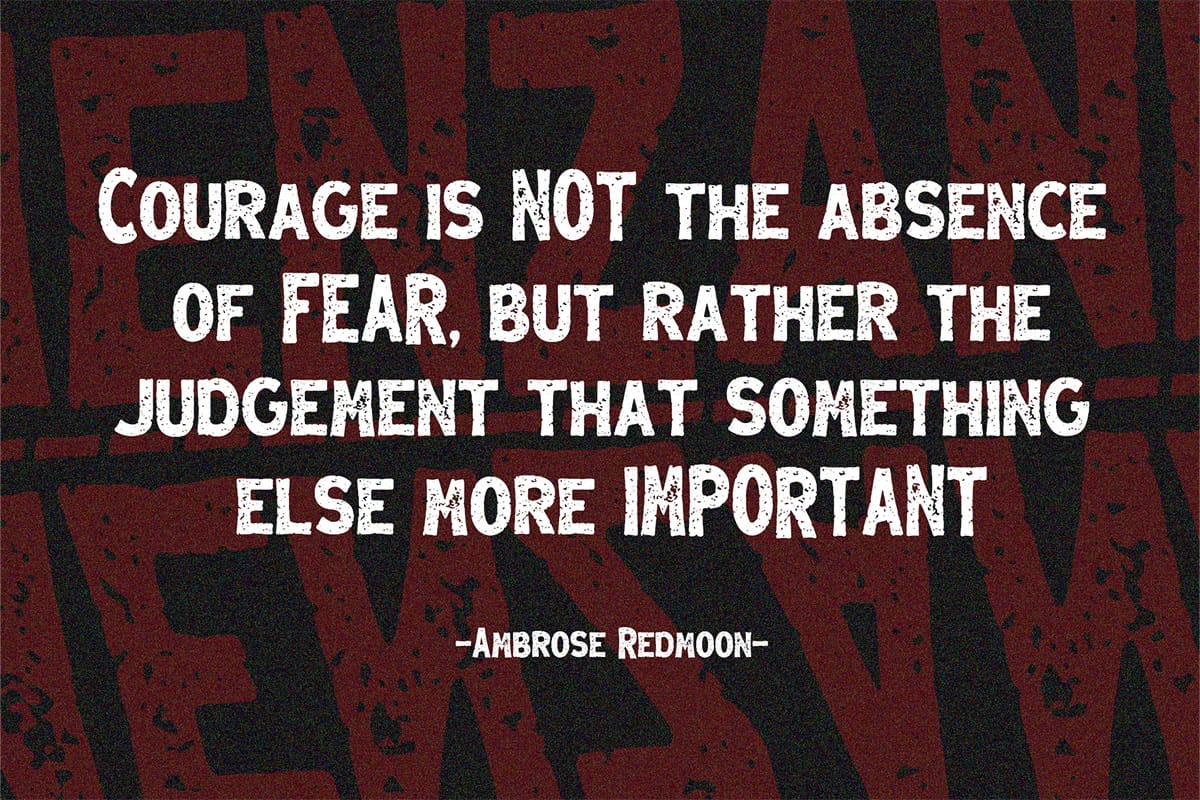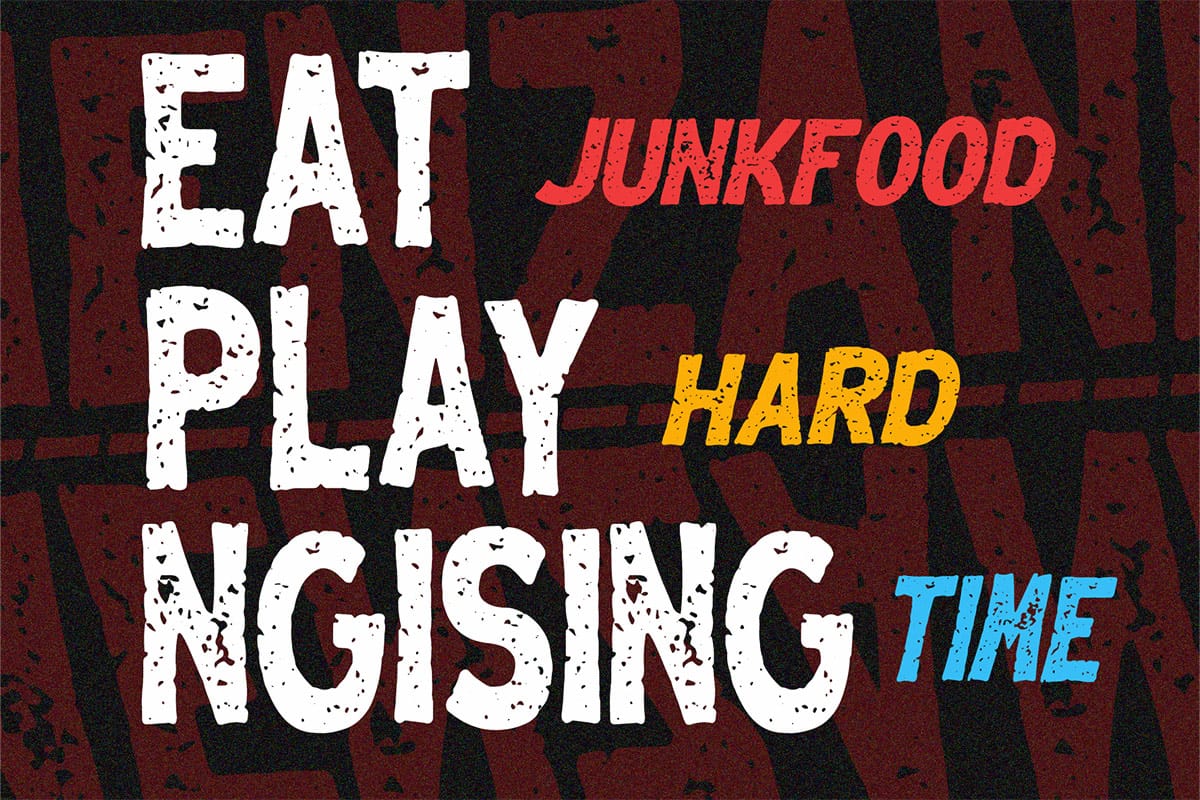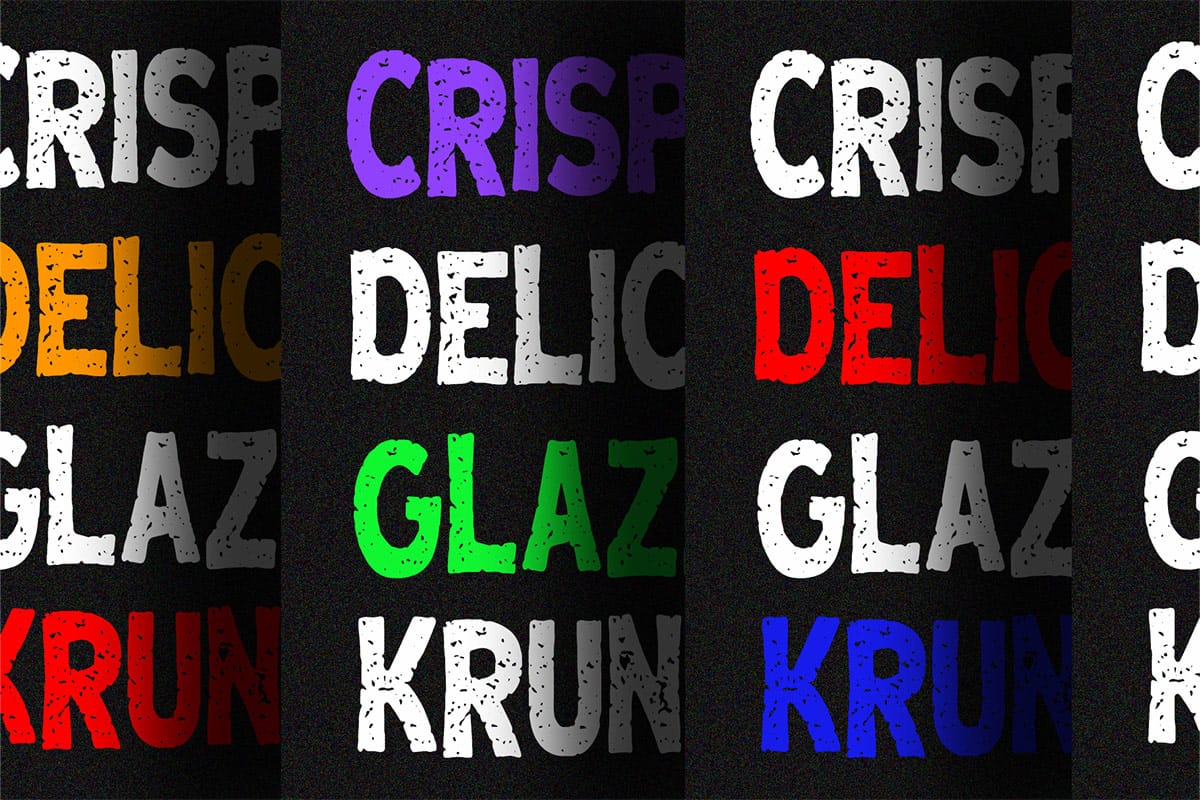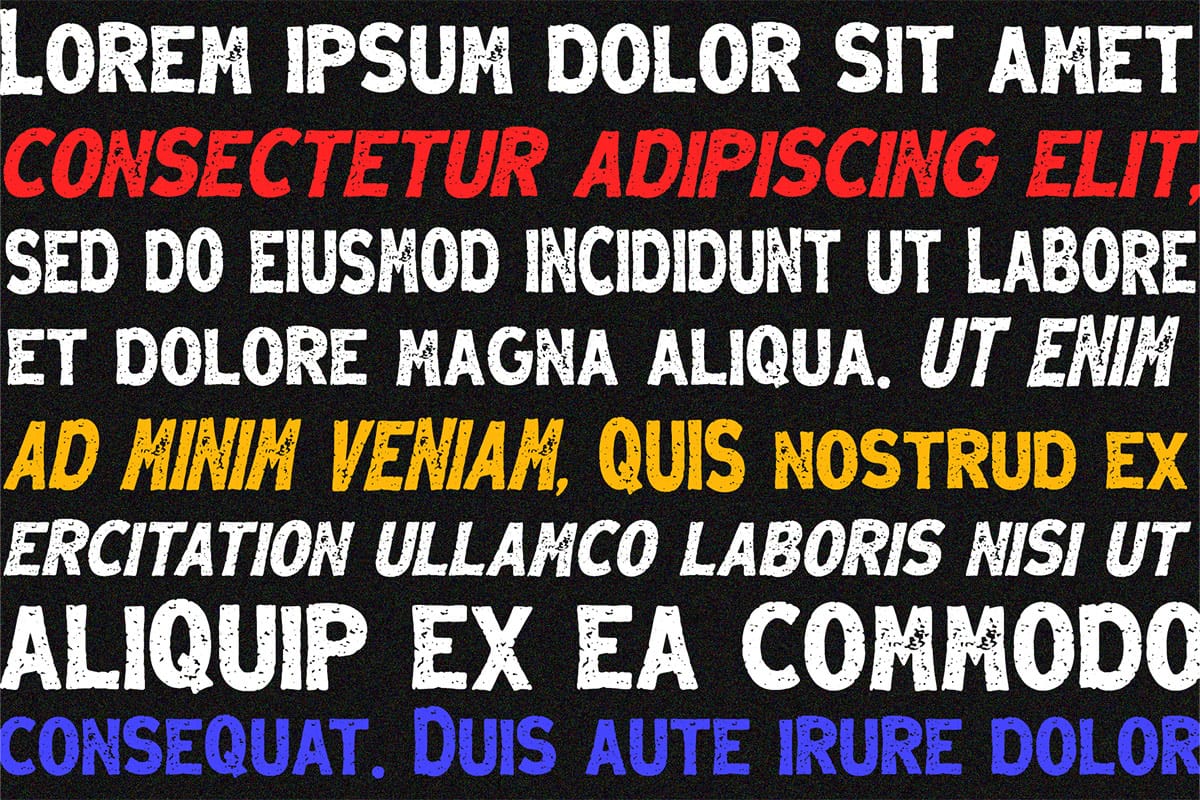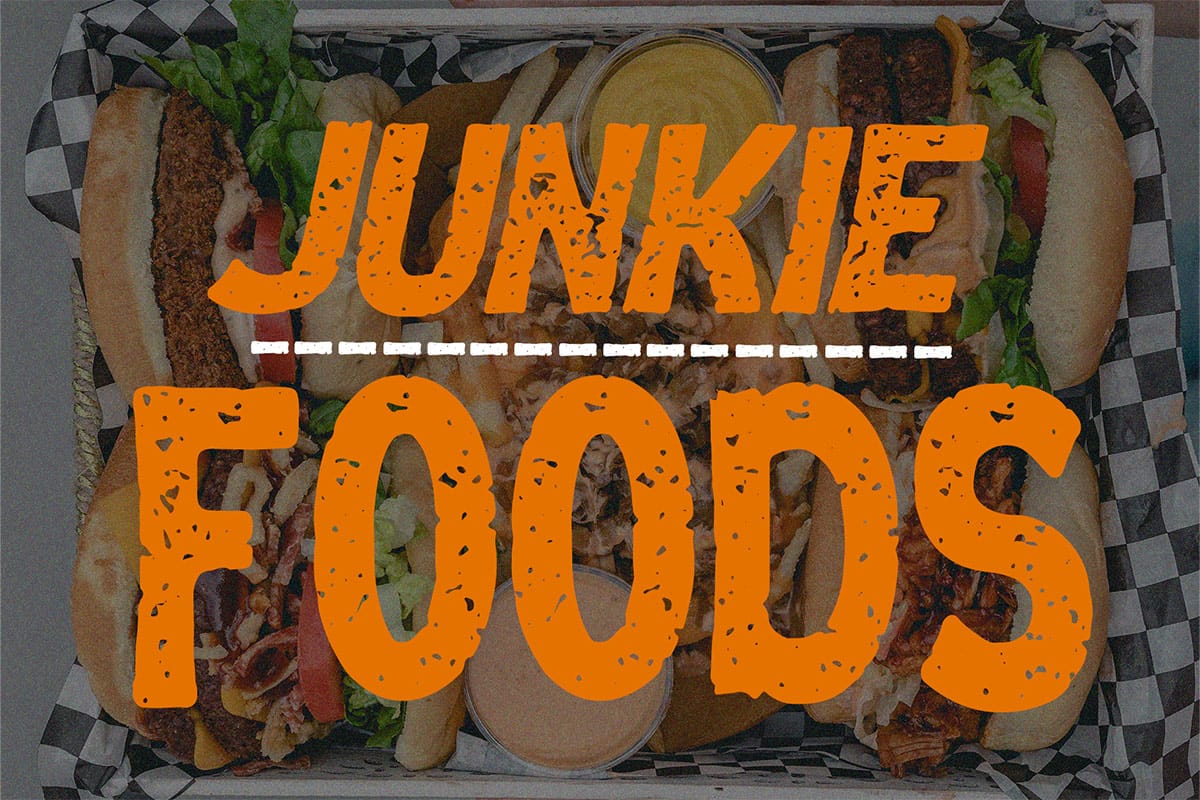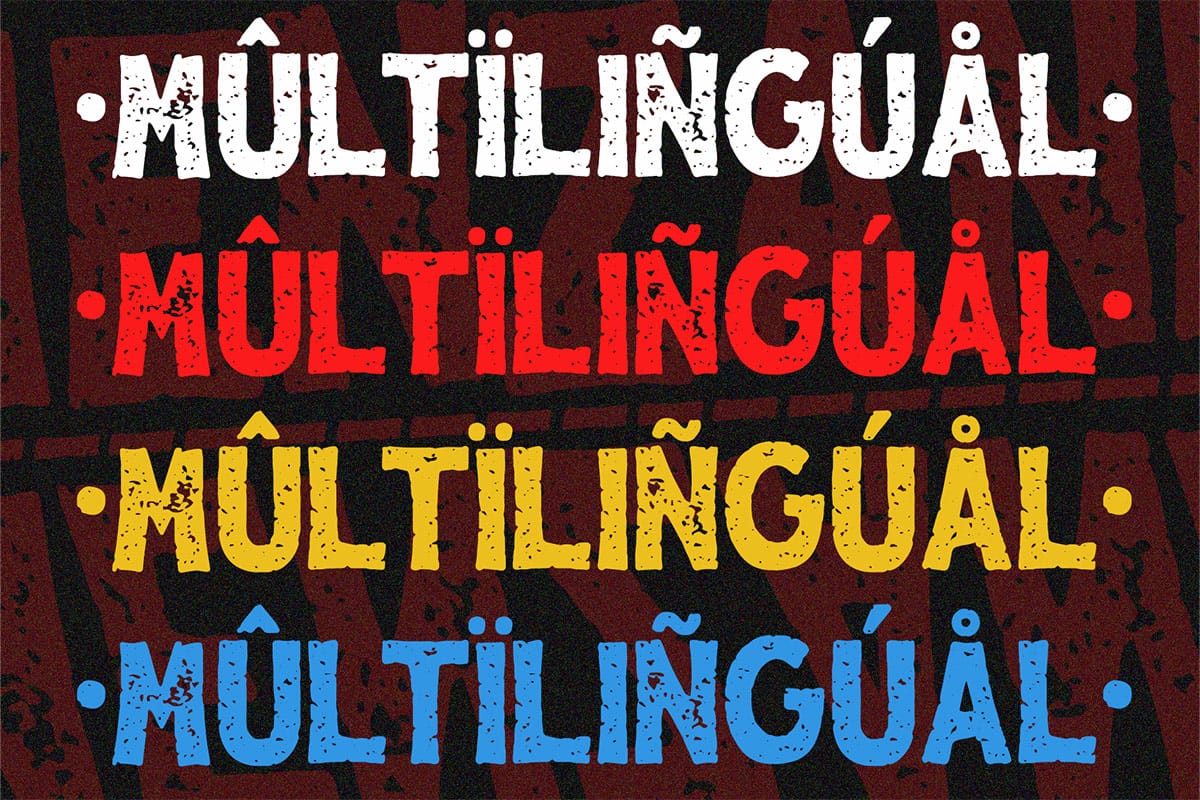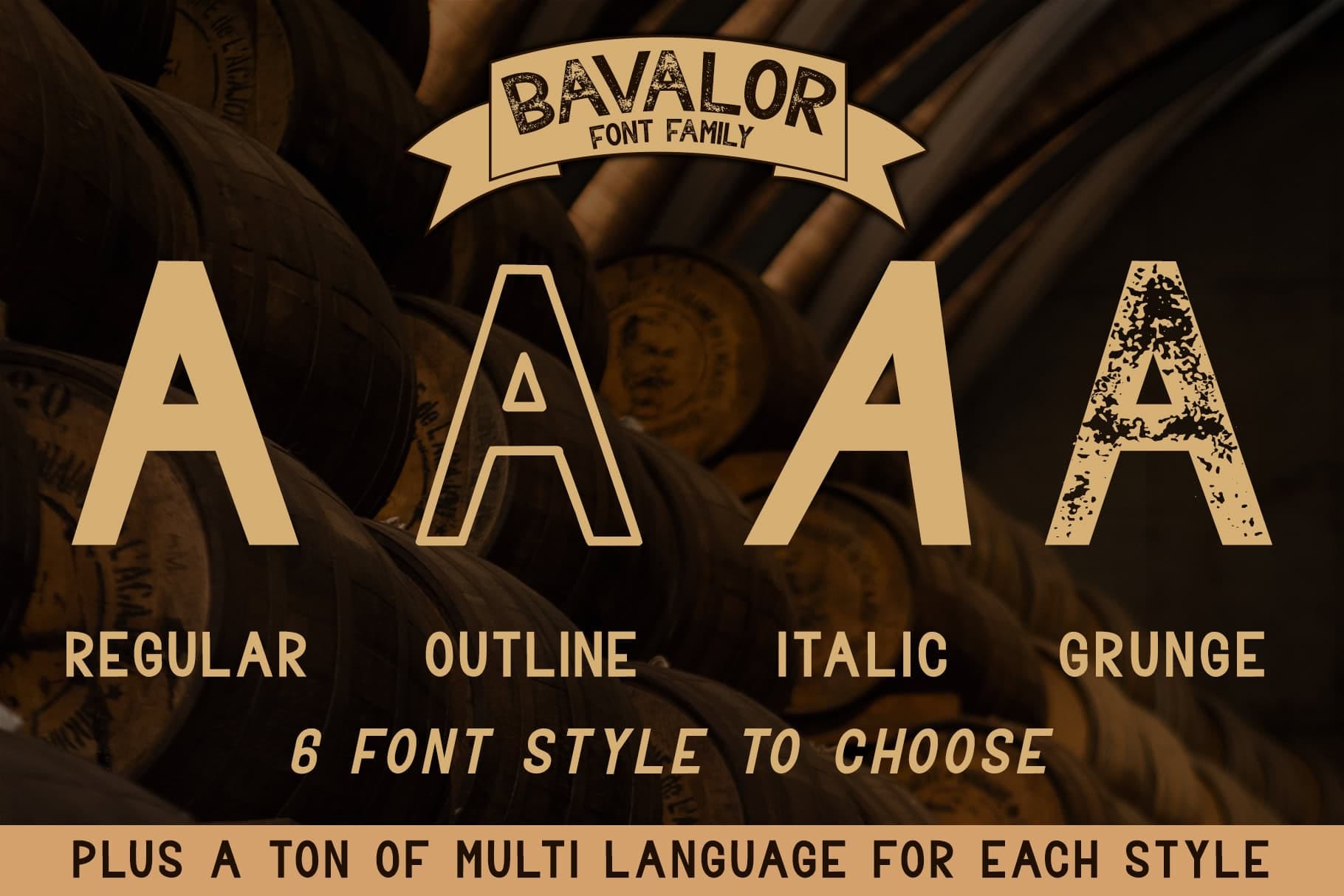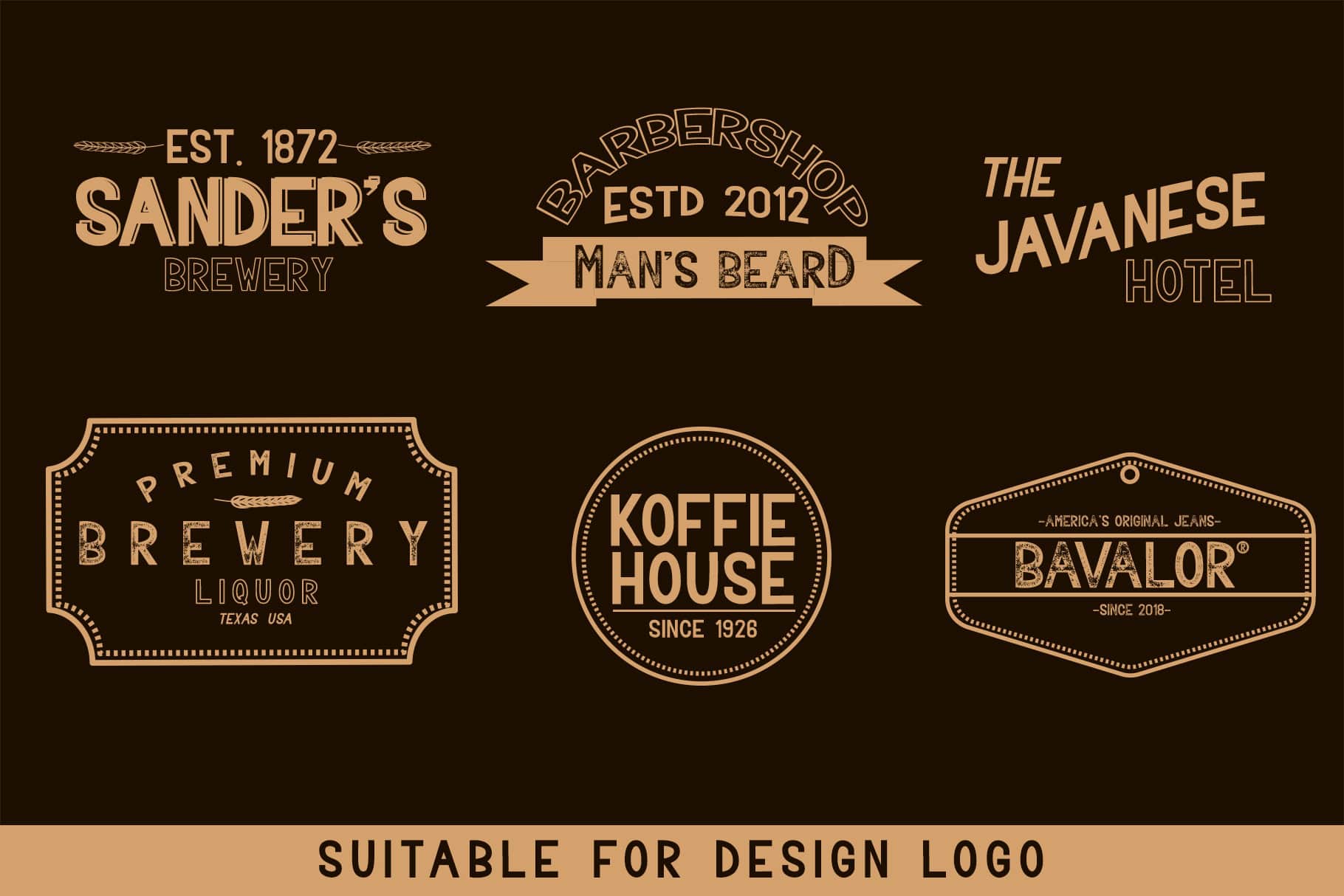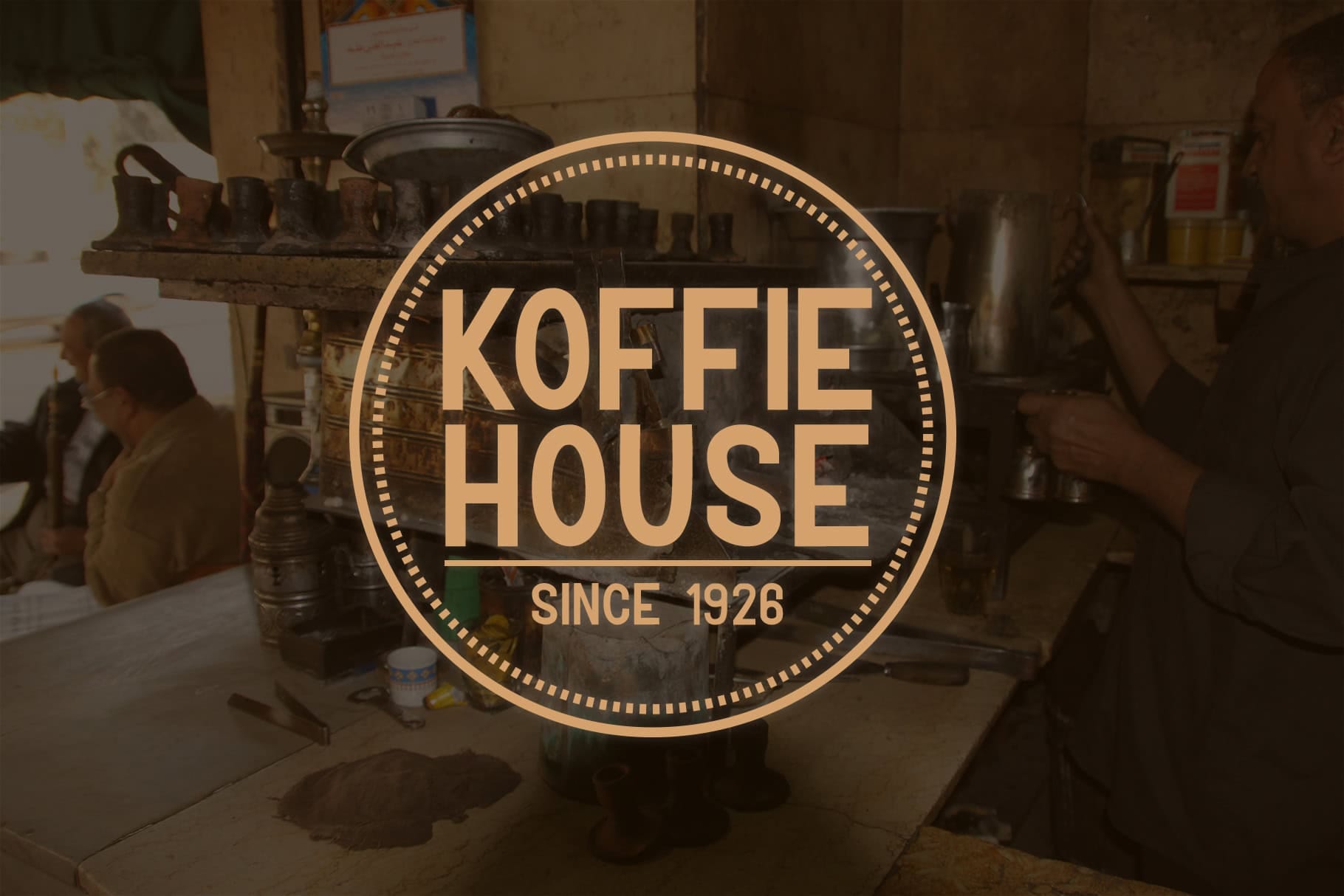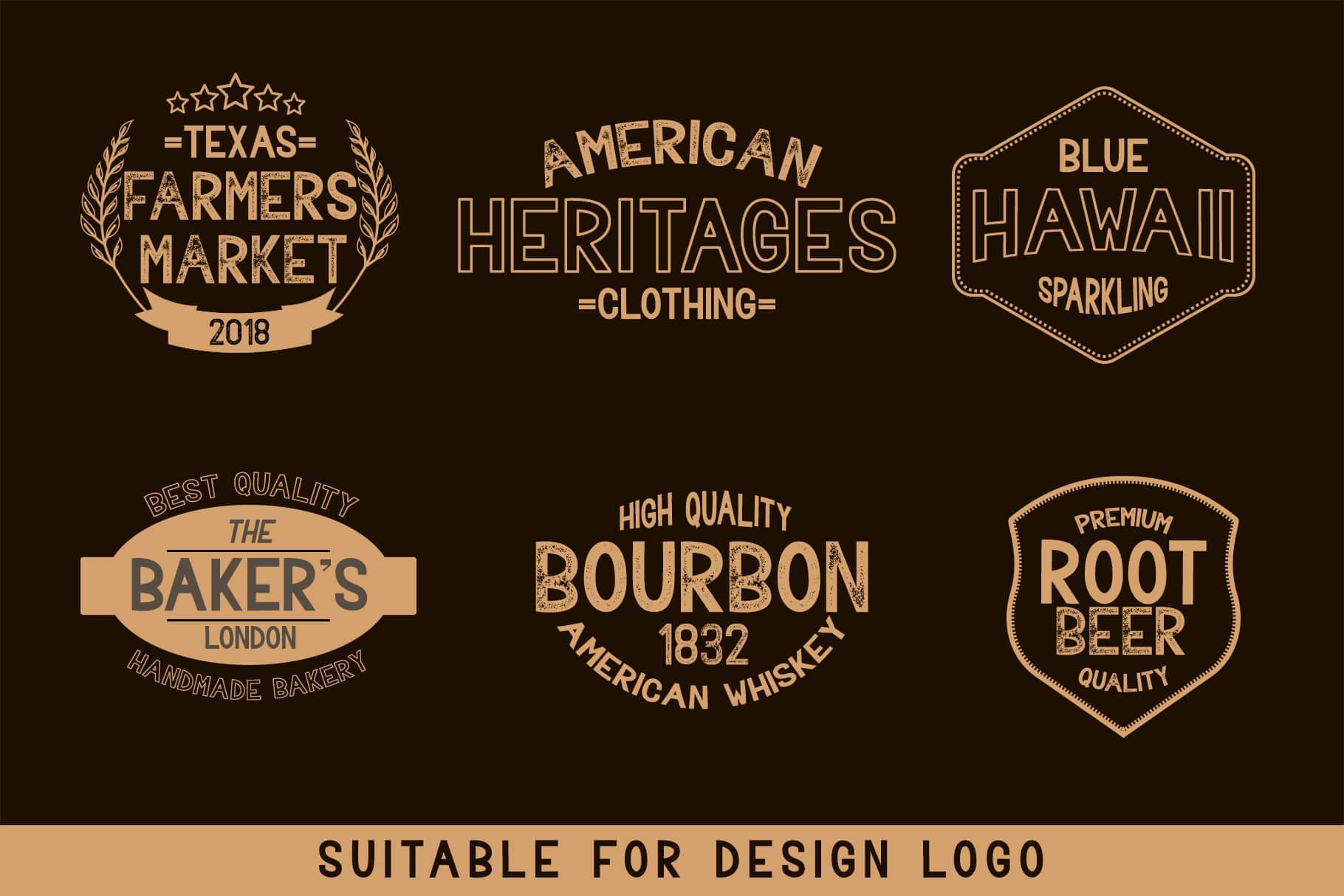
Band Name Ideas that Make Your Group Unforgettable
In the music world, a name can define your group’s legacy. Whether you’re forming a fierce girl group, a gritty rock band, or an indie duo, your name is the first impression. In this post, we’ll explore powerful band name ideas that make your group unforgettable plus font pairings that visually amplify your musical vibe.
From emotional to electric, modern to nostalgic, we’re combining creativity, branding, and design to help you stand out. If you’re searching for band name ideas that truly match your sound, message, and stage presence, you’re in the right place.
Why the Right Band Name Matters
Your band name tells your story. It sets the tone before anyone hears your music. A killer name:
• Grabs attention
• Reflects your genre or energy
• Sticks in memory
• Looks iconic on posters and streaming platforms
Choosing the right band name is a vital branding decision and pairing it with the right font can make it even more unforgettable.
How to Come Up with Unique Band Name Ideas
Before we get into the list, here are quick tips to brainstorm:
• Look to your lyrics: A phrase from your best song might become your group’s name.
• Mash words together: Like “Radiohead” or “Backstreet.”
• Play with irony: Funny or unexpected names work well especially for girl groups.
• Use foreign language words: They can sound cool and original.
• Try emotional triggers: Choose names that spark imagery or feeling.
Band Name Ideas for Girl Groups
If your group is about harmony, empowerment, or fun energy, these names strike the right chord:
1. Velvet Voltage
2. Sugar Riot
3. Midnight Cherries
4. Golden Echo
5. Luna Vogue
6. The Bloom Beat
7. Lipstick Static
8. Crimson Queens
9. Honey Overdrive
10. Twinkle Rebels
Font Pairing Tip:
Use a bold serif like Bavalor for the main name, paired with a handwritten subfont like Hellena for softer feminine energy.
Band Name Ideas for Rock Bands
Need something that shouts rebellion, raw emotion, or vintage power?
1. Rust Anthem
2. Neon Shatter
3. Riff Republic
4. Iron Muse
5. Gravel Saints
6. Ash & Vinyl
7. Voltage Bloom
8. Echo Snare
9. Blackened Horizon
10. The Blare Theory
Font Pairing Tip:
Try Menzanine for a gritty, distressed look paired with Carletone or Fleur Bleue for contrast in promotional visuals.
Band Name Ideas Inspired by Aesthetic Moods
1. Dreamy or Chill Vibes
• Ocean Lullaby
• Smoke Petals
• Moonmilk
• Indigo Nova
• Daylight Fade
Font combo: Ronallatie + Janethville for Smooth script and casual serif for a modern lo-fi or synth-pop group.
2. Dark & Edgy
• Hollow Parade
• Velvet Doom
• Sin & Static
• Pale Monarch
• Ghost Orchard
Font combo: Sparkling Bright + Beauty Signature A moody contrast with gothic undertones.
The Psychology Behind Good Band Name Ideas
Strong band name ideas are:
• Memorable (Short, rhythmic, or surprising)
• Visualizable (They evoke imagery)
• Genre-appropriate (You don’t want a metal band called “The Cupcakes”)
• Brandable (Easy to say, spell, and type online)
Combine that with font pairing, and your identity becomes rock-solid across album covers, social content, and tour posters.
20 More Catchy Band Name Ideas (All Genres)
Here’s a quick bonus list to fuel your brainstorm:
1. Cosmic Glitch
2. The Paper Lights
3. Sirens on Vinyl
4. Static Bloom
5. Crimson Arcade
6. Arctic Revival
7. Electric Mirage
8. The Opal Code
9. Fox & Fire
10. The Stellar Verse
11. Marble Season
12. Pulse Revival
13. Hollow Gold
14. The Crystal Static
15. Riot Velvet
16. Echo Lips
17. Ink and Ivy
18. Mercury Phase
19. Solar Dollhouse
20. Broken Carousel
Best Font Pairings Band Name Ideas
Based on your visual references, here are a few band name ideas using saved font pairings:
Using Your Band Name Across Branding
Once you pick a band name, lock in your visual identity:
• Logo with your font pairing
• Social handles (Make sure the name is available)
• Domain name for your music website
• Album art and single covers
• Merch design with font consistency
A cool band name is just the start consistency is key to building a fanbase.
Final Thoughts: Let the Name Speak Loud